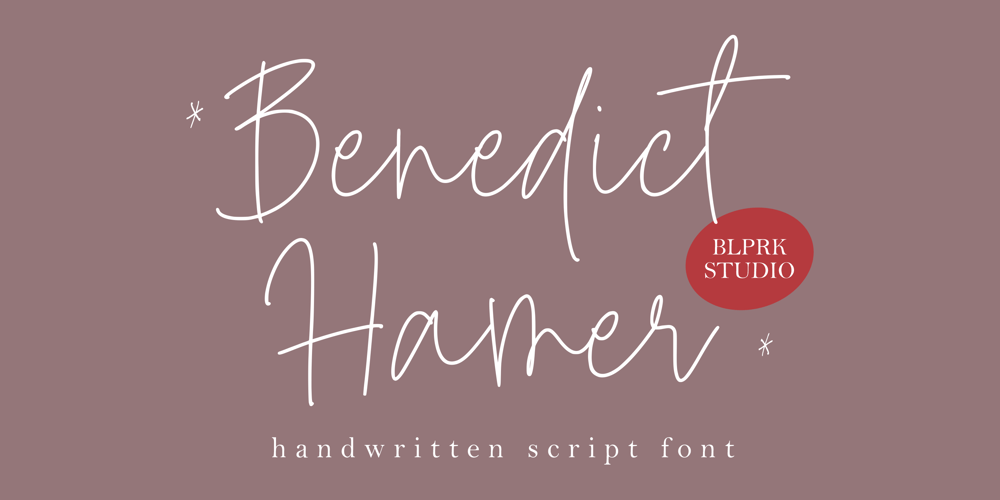
Benedict Hamer Font Family was designed by Restu Angga and published by Balpirick. Benedict Hamer contains 1 styles and family package options. Benedict Hamer is a Handwritten Script Font.Our Modern Handwritten Script Font with Monoline captures the essence of contemporary design with its clean lines and effortless elegance. The monoline style adds a minimalist touch to the beautifully crafted script font, resulting in an iconic and versatile font that can elevate any design project. – also multilingual supportEnjoy the font! Feel free to comment or feedback!Thank you!